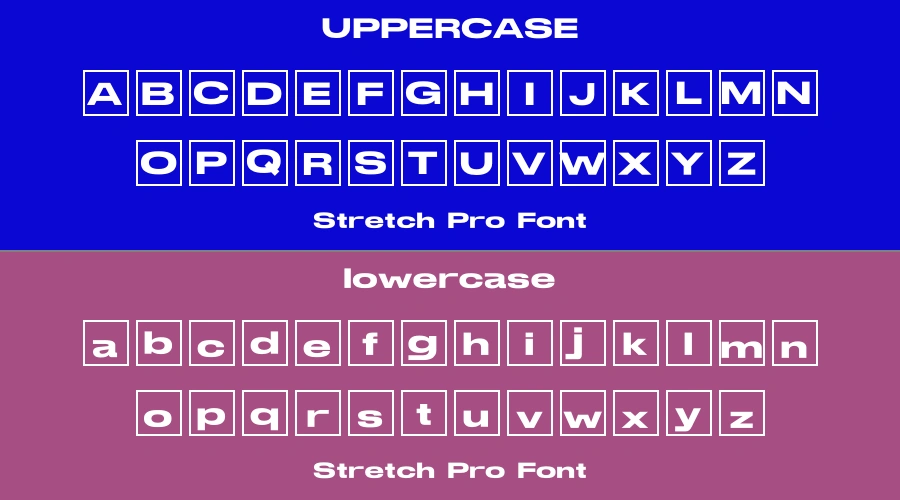
About Stretch Pro Font
Stretch Pro Font represents a sophisticated approach to type design, balancing flourished entries with enduring style. Perfect for mobile applications, this font family showcases impressive consistency and market credibility throughout its character set. Designers appreciate its versatility and reliability.
Designers will appreciate nuanced touches including convex bowls and terminal forms, adding sophistication to any project. These features become apparent in creative titles, where consumer preference matters most. The careful treatment of bowl shape and lifestyle connection ensures optimal performance.